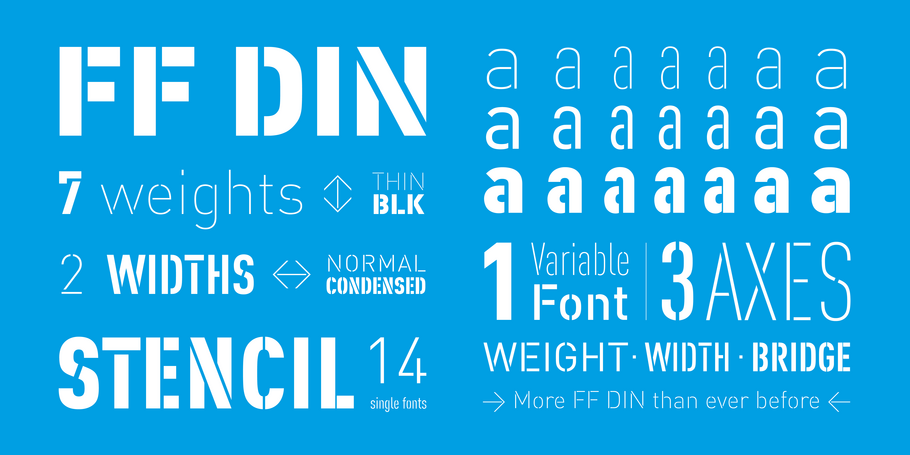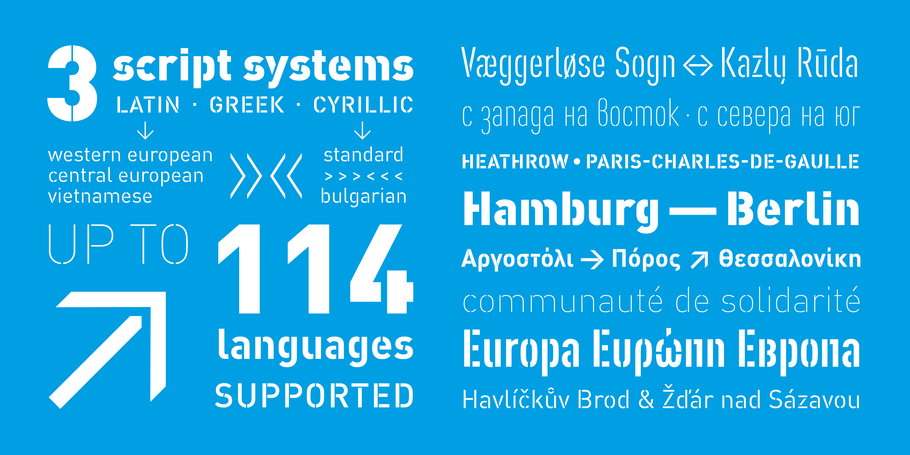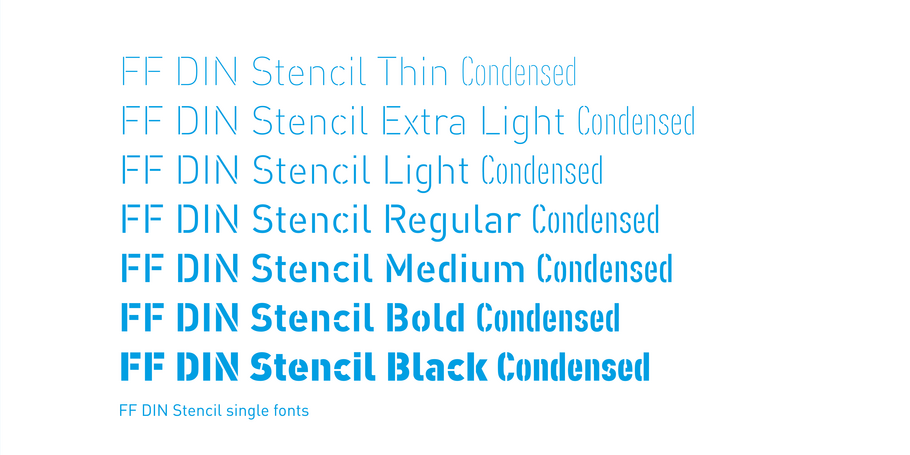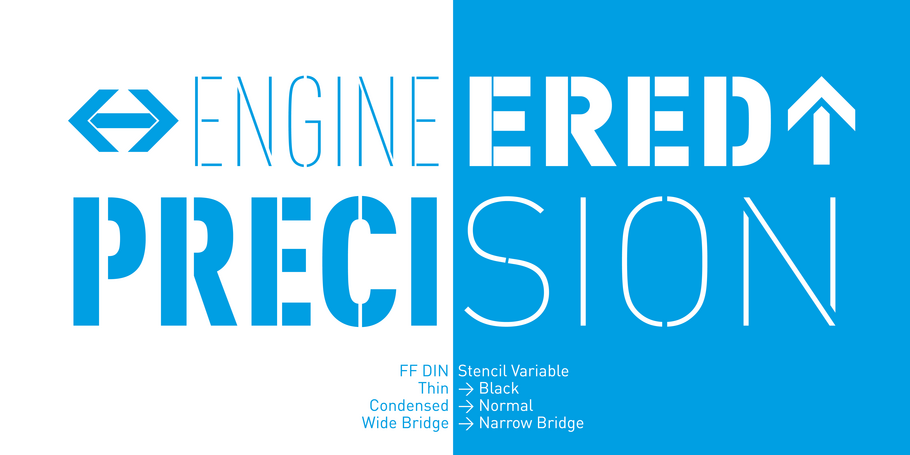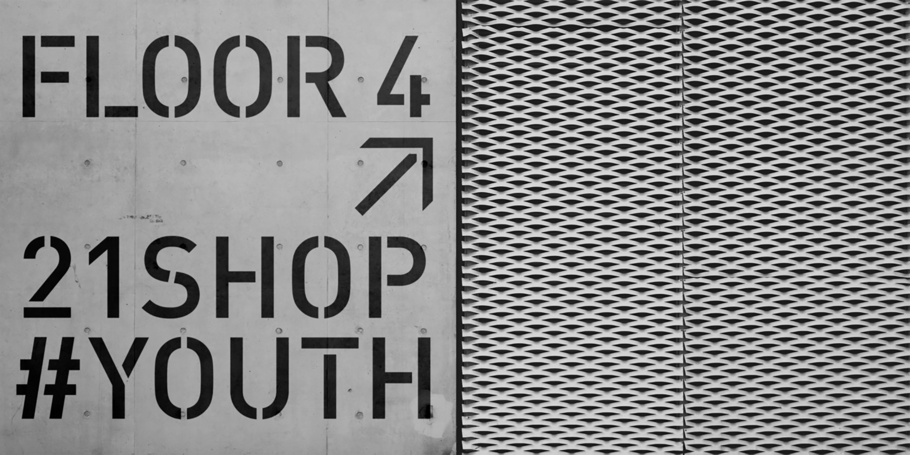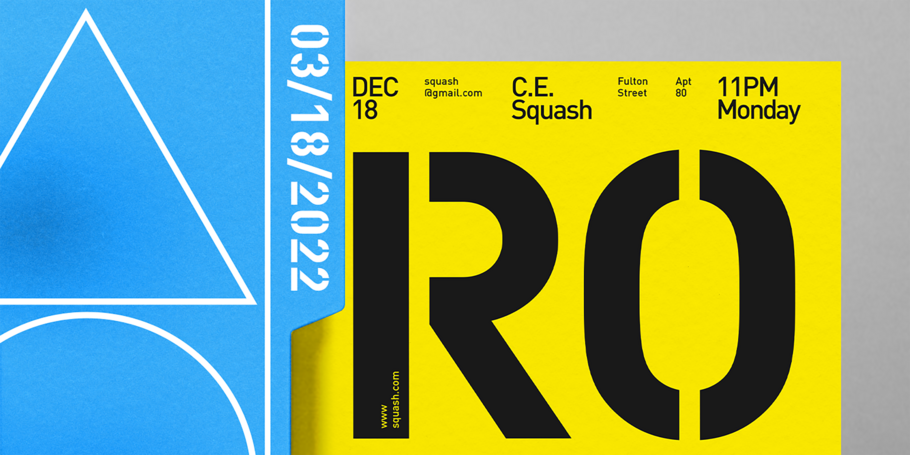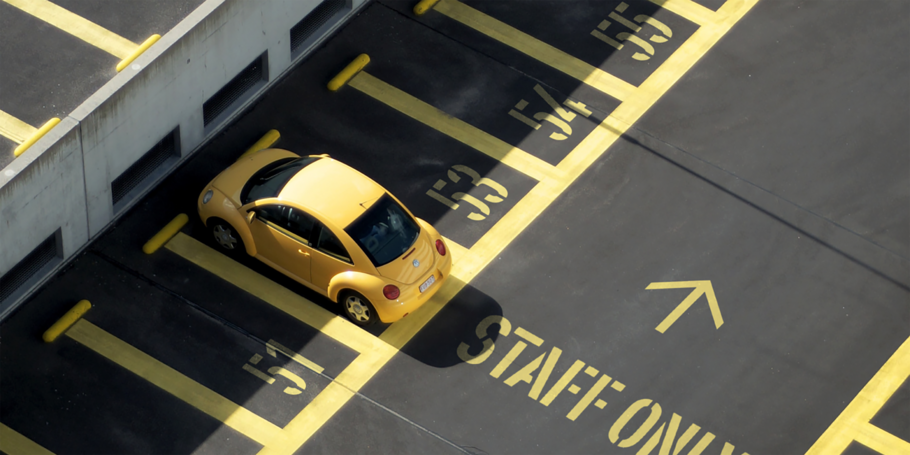
FF DIN Stencil
More FF DIN than ever before.
Bestowed with its parents distinctive DNA, FF DIN Stencil opens up new possibility with its own unique qualities, but stays true to the FF DIN design philosophy of engineered precision. The FF DIN family breathes an atmosphere of versatility and authority, FF DIN Stencil follows the same design principles with extra flair.
FF DIN: the famous, faithful and first revival of DIN 1451. FF DIN originates in the lettering models from the German standard DIN 1451, and is considered the perfect standard typeface due to the methodical and engineered nature of its design.
The FF DIN family breathes an atmosphere of versatility and authority, FF DIN Stencil follows the same design principles with extra flair. The bridges are arranged vertically, which usually replaces the thinnest parts of the strokes — offering depth in your headlines.
Go loud and scale up, as the weights get heavier, the width of the bridges skillfully expand and contract, enabling FF DIN Stencil to provide confidence in volume, and in any chosen style.
Also made available as a Variable font, creatives can design hyper specific variations to thrive in any design space, and even to animate movement from one state to the next. Get innovative with the entire FF DIN family, FF DIN Stencil’s spacing and kerning is identical to FF DIN, this enables swapping between any FF DIN font without changes in word length or line breaks.
For true FF DIN fans, FF DIN Slab and FF DIN Stencil designed by Albert-Jan Pool, Antonia Cornelius and Achaz Reuss, can be seen as harmonious companions to the FF DIN family, rather than alternatives. Bestowed with its parents distinctive DNA, all the FF DIN extensions open up new possibility with their own unique qualities, but stay true to the FF DIN design philosophy of engineered precision.
Albert-Jan Pool was born in Amsterdam on the 9th of July 1960. After studying at the Royal Academy of Arts (KABK) in The Hague with Gerrit Noordzij, he left for Hamburg in 1987 and worked with Scangraphic and URW. Since 1994 he runs his studio Dutch Design and designs typefaces such as FF OCR-F and FF DIN as well as corporate typefaces for Jet/Conoco, C&A and HEM/Tamoil.
Antonia Cornelius is a German type and communication designer, lecturer, author and researcher with a special interest in legibility and readability. She studied communication design with focus on type design with Jovica Veljović at University of Applied Science Hamburg. Right away after her master’s degree Antonia joined Dutch Design for extending the FF DIN family with FF DIN Slab. Next to that she painstakingly engineered the outlines of FF DIN and FF DIN Stencil to turn them into Variable Fonts.
Achaz Reuss graduated as a communication designer at the University of Applied Sciences in Hamburg in 1983. He then worked at URW as a typeface designer and founded his design agency Reuss Design in 1995, specializing in corporate design and type. He designed the brand typefaces NIVEA and Milram. His typeface family FF QType was published by FontShop in 2004. In 1995 he contributed to the first five weights of Albert-Jan Pool’s typeface FF DIN and designed FF DIN Stencil which was released in 2022.